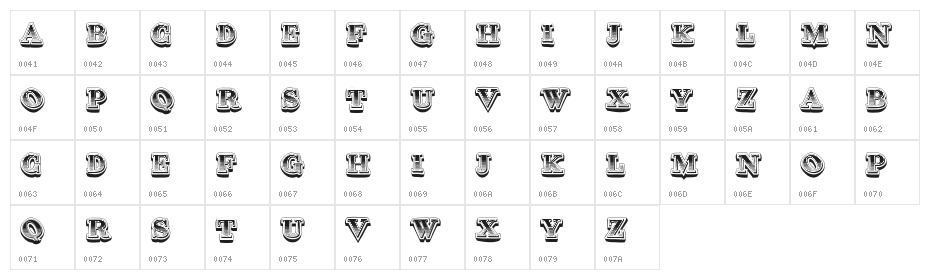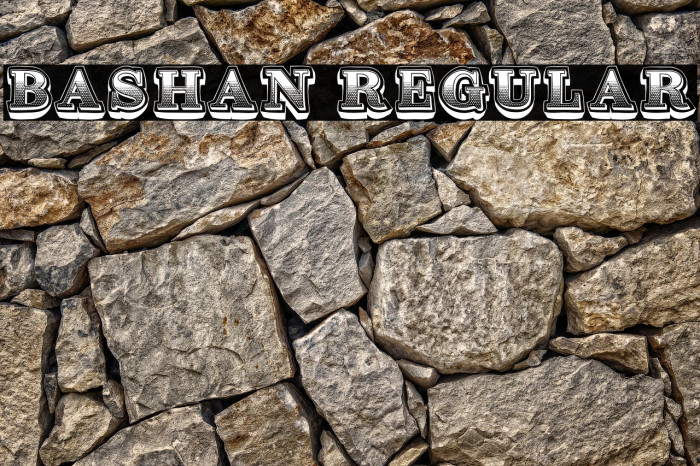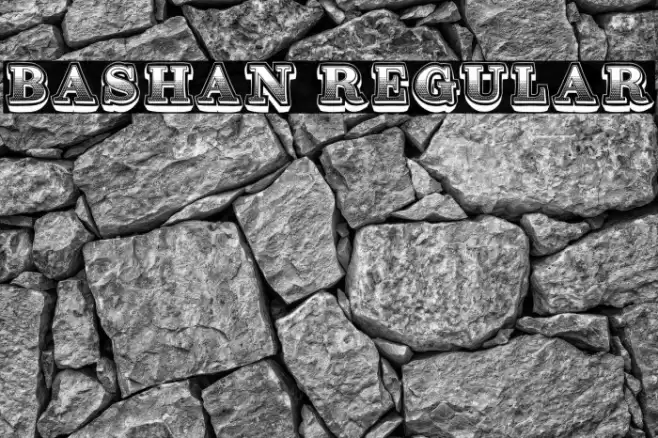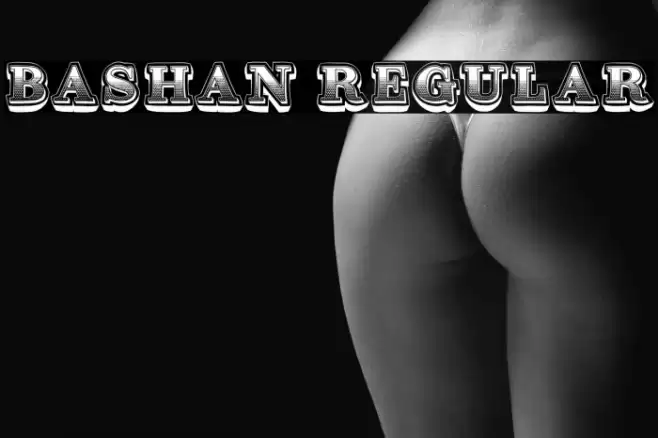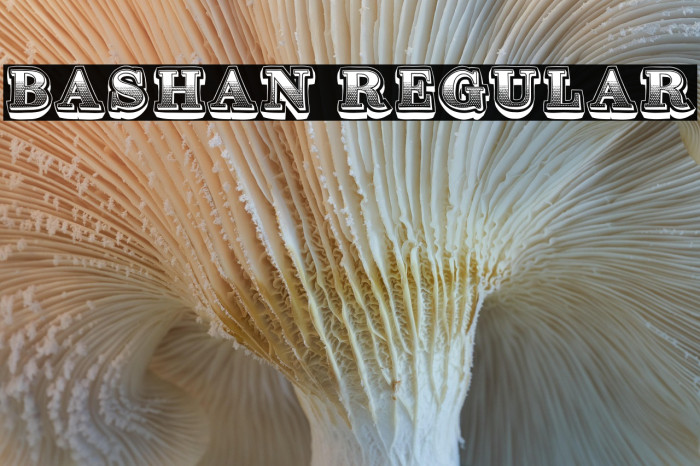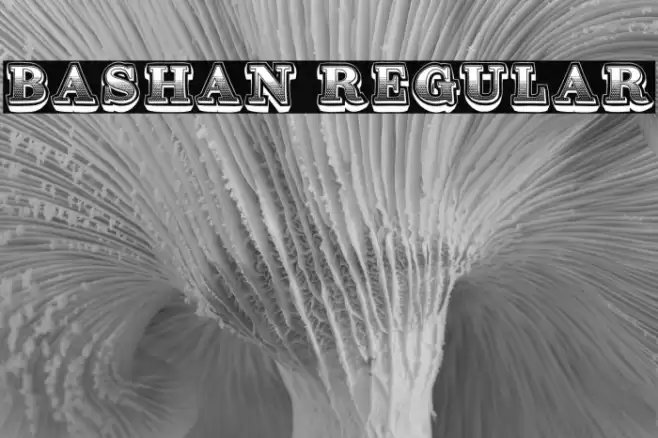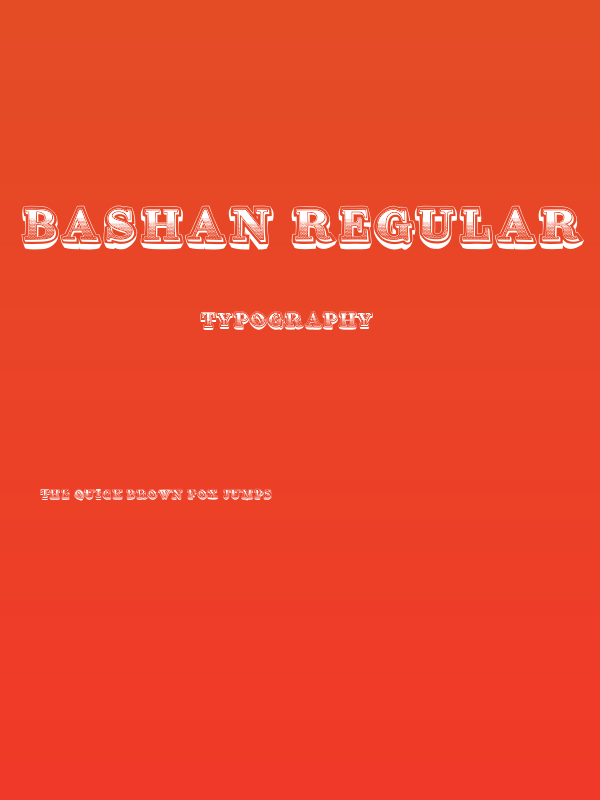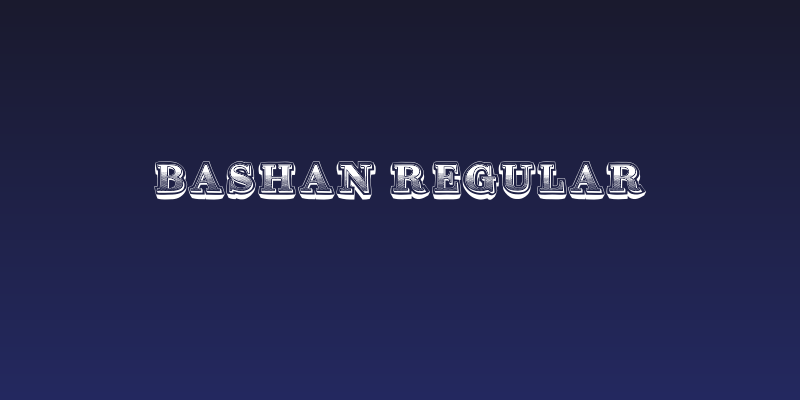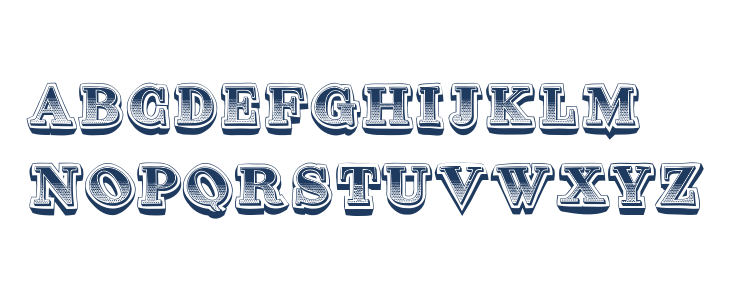
Bashan Regular Font
Bashan Regular Description
This font features a bold and decorative style with a three-dimensional shadow effect that gives it a striking appearance. The letters are uppercase and have a strong, robust structure with intricate detailing inside each character, adding depth and texture. The font's design is reminiscent of vintage signage or poster typography, making it ideal for projects that require a touch of nostalgia or a bold statement. The shadow effect enhances the visual impact, making the text stand out prominently.
| Proposed Projects | Ideal for vintage-themed posters, signage, branding, and headlines that require a bold and eye-catching typeface. |